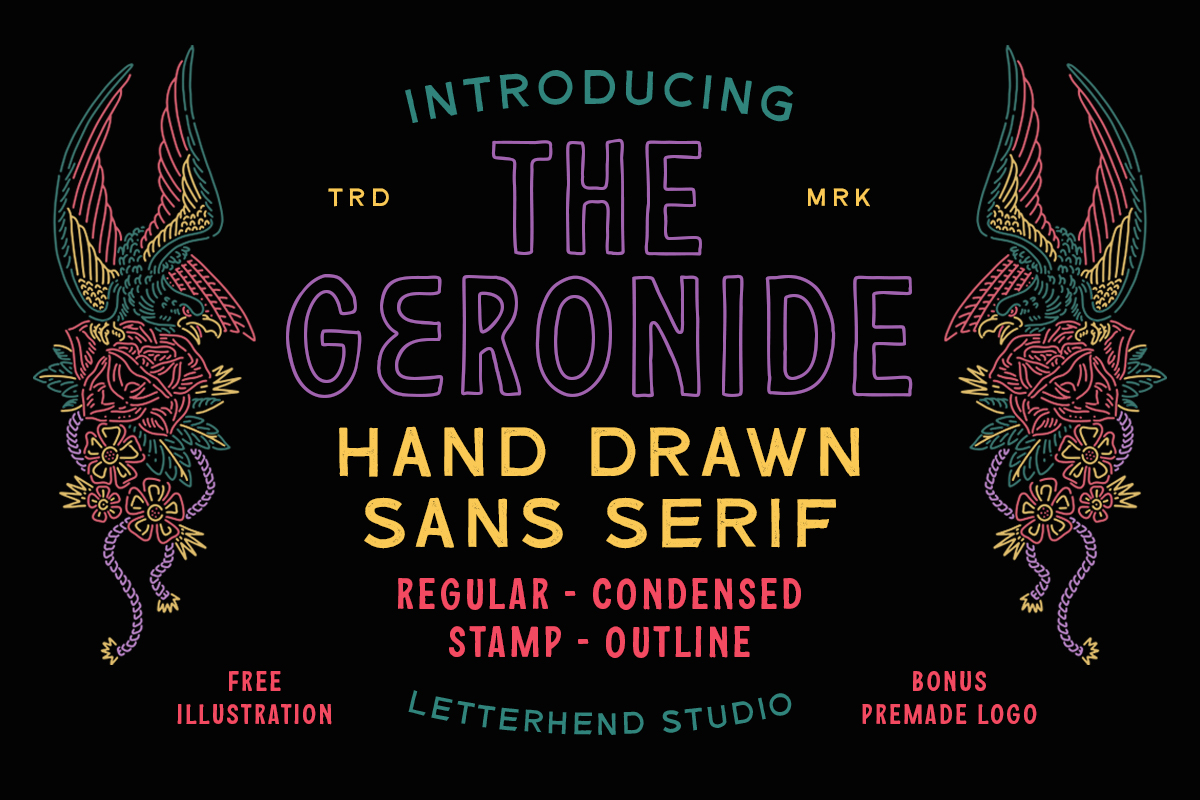
The Geronide Font
The Geronide Font is perfect for senior living community branding, retirement planning service materials, wisdom-focused book covers, heritage brand identities, multigenerational family business logos, distinguished professional service firms, mature lifestyle magazine layouts, seasoned expert consultation materials, legacy preservation organizations, and respected institutional communications. This dignified typeface brings timeless authority to senior care facilities, retirement community marketing, experienced professional services, heritage preservation societies, and distinguished educational institutions.
The Geronide Font is exciting because it embodies the accumulated wisdom and distinguished experience of maturity through its thoughtfully crafted letterforms. The font features characters with refined dignity and seasoned proportions that convey the depth of knowledge, life experience, and earned respect that comes with age and wisdom. Its distinctive construction demonstrates mature sophistication with carefully balanced elements that create an immediate sense of trustworthiness and experienced authority. The font's distinguished presence and mature authenticity make it perfect for brands seeking to communicate wisdom, experience, and dignified professionalism in their visual communications.
The Geronide Font family includes various distinguished styles: Light, Regular, Medium, Bold, Italic, Condensed, Extended, Display, Classic, Dignified, Mature, and Wisdom variants. Each family member maintains the core distinguished DNA while offering different levels of authority for diverse mature-focused design applications. The comprehensive font collection ensures consistent dignified branding across senior-focused campaigns, heritage businesses, and wisdom-centered communication materials.
Whether you're creating senior-focused brand identities, designing mature lifestyle marketing materials, developing heritage website headers, or crafting wisdom-centered promotional campaigns, The Geronide Font delivers outstanding distinguished appeal and mature authenticity. The font's distinctive dignified personality excels in heritage logos, mature packaging design, professional applications, and institutional projects where wisdom and distinguished experience are essential.